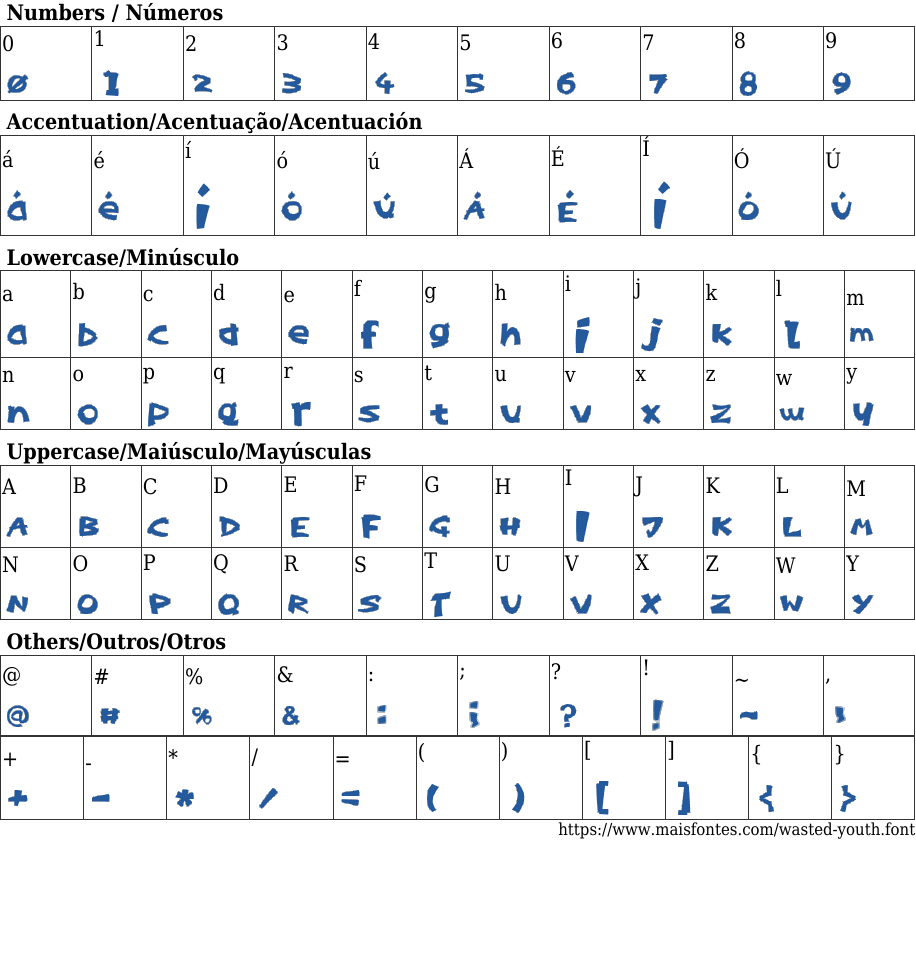
Wasted Youth Font - Wasted youth is a versatile brush font with shades of grunge, punk and horror. Examples of this font can be found on the font site exfont, designed by christopher king, include the number of glyphs. 2021 christopher king | wingsart studio. Ideal for street art designs, music album.
Wasted youth is a versatile brush font with shades of grunge, punk and horror. Ideal for street art designs, music album. 2021 christopher king | wingsart studio. Examples of this font can be found on the font site exfont, designed by christopher king, include the number of glyphs.
2021 christopher king | wingsart studio. Wasted youth is a versatile brush font with shades of grunge, punk and horror. Ideal for street art designs, music album. Examples of this font can be found on the font site exfont, designed by christopher king, include the number of glyphs.
Ideal for street art designs, music album. 2021 christopher king | wingsart studio. Wasted youth is a versatile brush font with shades of grunge, punk and horror. Examples of this font can be found on the font site exfont, designed by christopher king, include the number of glyphs.
Wasted youth is a versatile brush font with shades of grunge, punk and horror. 2021 christopher king | wingsart studio. Examples of this font can be found on the font site exfont, designed by christopher king, include the number of glyphs. Ideal for street art designs, music album.
Ideal for street art designs, music album. 2021 christopher king | wingsart studio. Wasted youth is a versatile brush font with shades of grunge, punk and horror. Examples of this font can be found on the font site exfont, designed by christopher king, include the number of glyphs.
Examples of this font can be found on the font site exfont, designed by christopher king, include the number of glyphs. Ideal for street art designs, music album. Wasted youth is a versatile brush font with shades of grunge, punk and horror. 2021 christopher king | wingsart studio.
Wasted youth is a versatile brush font with shades of grunge, punk and horror. 2021 christopher king | wingsart studio. Ideal for street art designs, music album. Examples of this font can be found on the font site exfont, designed by christopher king, include the number of glyphs.
Examples of this font can be found on the font site exfont, designed by christopher king, include the number of glyphs. 2021 christopher king | wingsart studio. Wasted youth is a versatile brush font with shades of grunge, punk and horror. Ideal for street art designs, music album.
2021 christopher king | wingsart studio. Ideal for street art designs, music album. Wasted youth is a versatile brush font with shades of grunge, punk and horror. Examples of this font can be found on the font site exfont, designed by christopher king, include the number of glyphs.
2021 christopher king | wingsart studio. Wasted youth is a versatile brush font with shades of grunge, punk and horror. Ideal for street art designs, music album. Examples of this font can be found on the font site exfont, designed by christopher king, include the number of glyphs.
2021 christopher king | wingsart studio. Examples of this font can be found on the font site exfont, designed by christopher king, include the number of glyphs. Ideal for street art designs, music album. Wasted youth is a versatile brush font with shades of grunge, punk and horror.
Examples of this font can be found on the font site exfont, designed by christopher king, include the number of glyphs. Wasted youth is a versatile brush font with shades of grunge, punk and horror. Ideal for street art designs, music album. 2021 christopher king | wingsart studio.
Examples Of This Font Can Be Found On The Font Site Exfont, Designed By Christopher King, Include The Number Of Glyphs.
Ideal for street art designs, music album. Wasted youth is a versatile brush font with shades of grunge, punk and horror. 2021 christopher king | wingsart studio.